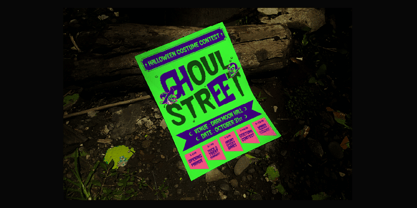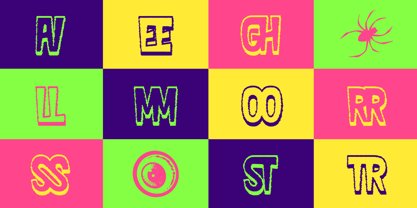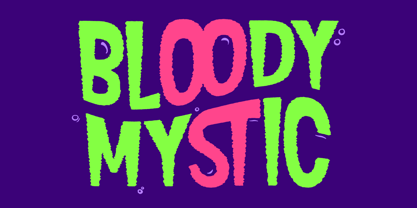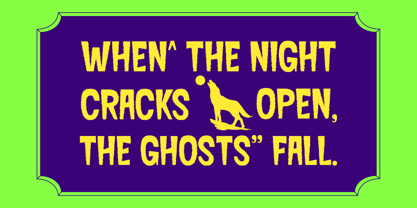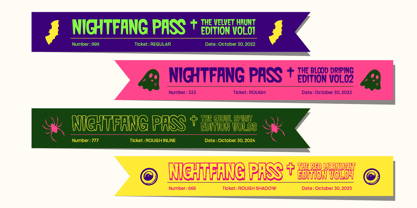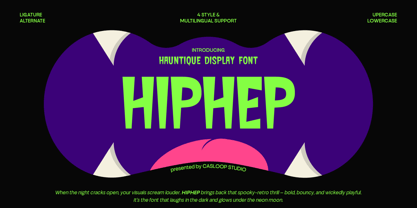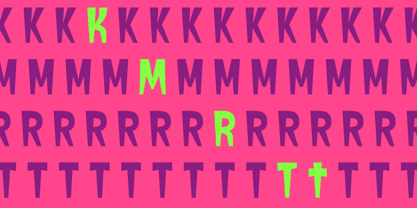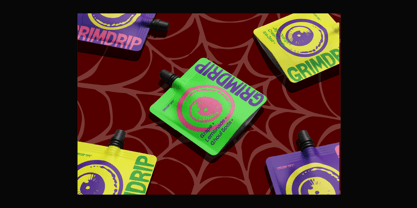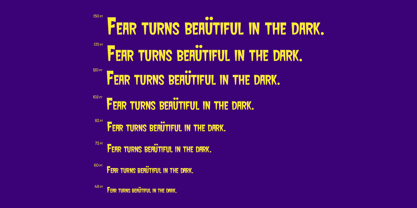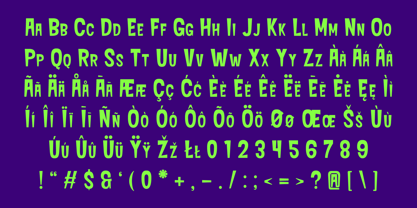
Hiphep
by Casloop Studio
The Hiphep Font Family was designed by Wantara Putra and published by Casloop Studio. Hiphep contains 4 styles.
HIPHEP is a haunted bold display font that brings spooky charm and monster energy into your designs. With rough textures, expressive angles, and quirky imperfections, HIPHEP feels alive like a trick-or-treat spirit dancing under the moonlight. It’s bold, loud, and just the right amount of creepy, perfect for Halloween visuals, horror branding, and anything that loves a little chaos. Each letter in HIPHEP carries attitude especially the R, P, and K designed to look like cheeky little creatures. The font’s experimental vibe makes it stand out for projects that crave character and emotion, from Halloween posters to haunted café branding. It’s not just a font; it’s a spooky persona that grins back at you. Best For Halloween & spooky-themed branding Display headlines & horror movie titles Trick-or-treat packaging & merch Indie fashion & eerie event posters Haunted cafés or music visuals With 4 styles Regular, Rough, Rough Inline, and Rough Shadow, HIPHEP adapts to every scary scenario. Multilingual Extended Latin support makes it global ready, while its expressive forms bring every headline to (after)life. From jack o’ lantern posters to ghostly brand marks HIPHEP is here to haunt your designs in the most delightful way.
Designers: Wantara Putra
Publisher: Casloop Studio
Foundry: Casloop Studio
Design Owner: Casloop Studio